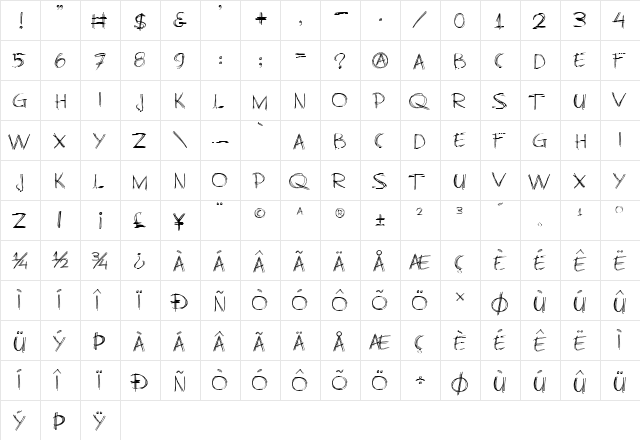
Business As Usual Regular
| Foundry | David Kerkhoff |
| Designer | David Kerkhoff |
Design Context for Business As Usual Typeface
Business As Usual is a composed and adaptable typeface that performs quietly and consistently across a wide range of design contexts.